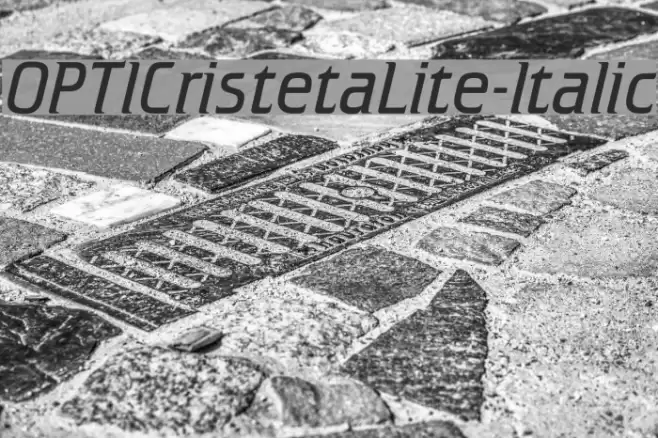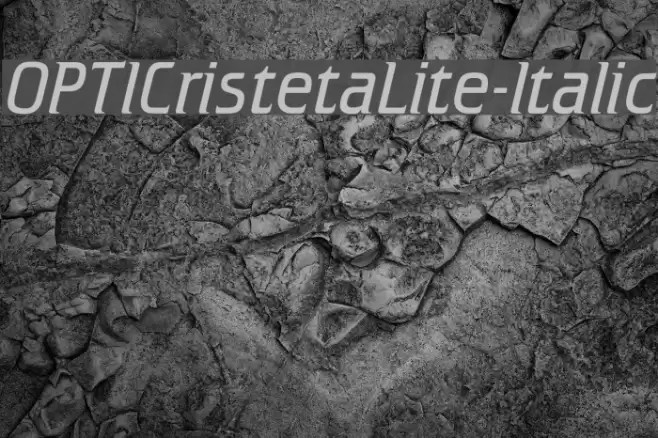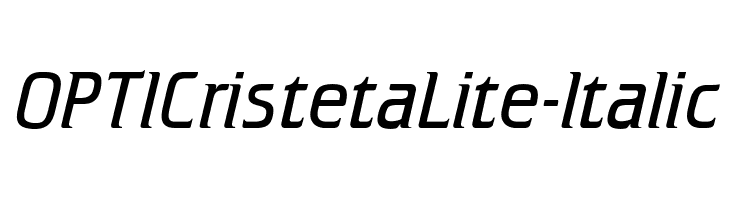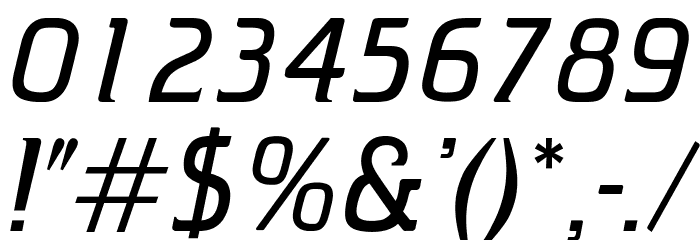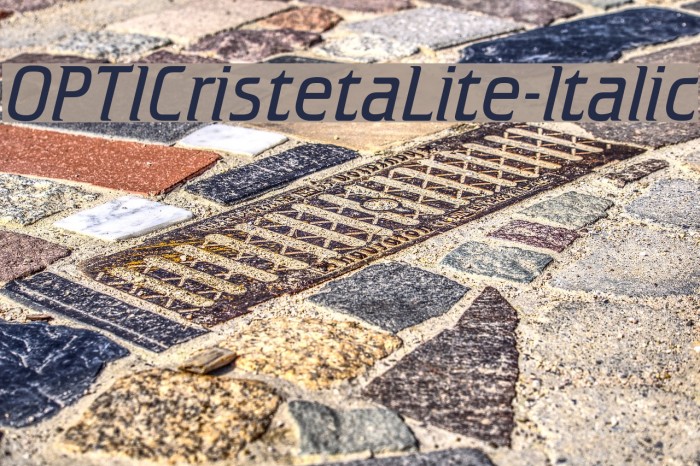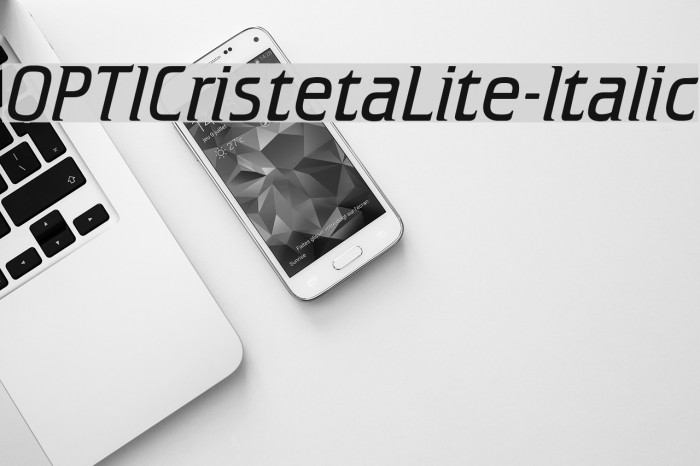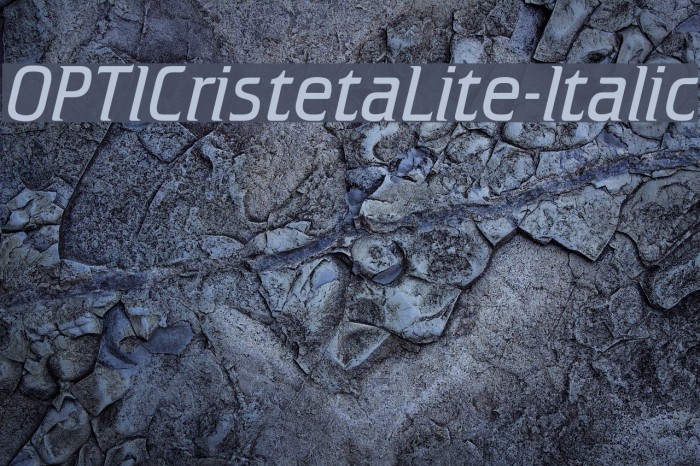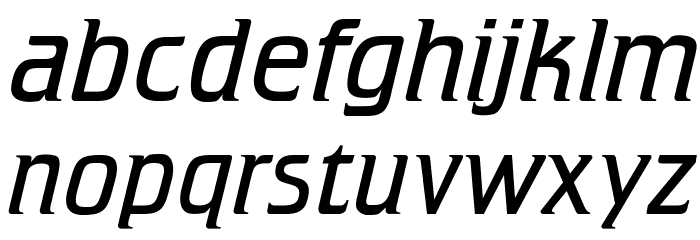
OPTICristetaLite-Italic Font
OPTICristetaLite-Italic Description
This font features a sleek and modern design with a slight italic slant, giving it a dynamic and forward-moving appearance. The characters are well-proportioned with a consistent stroke width, contributing to a clean and professional look. The uppercase letters maintain a strong presence, while the lowercase letters offer a smooth and flowing style. The numerals are clear and distinct, ensuring readability. Special characters are designed to complement the overall aesthetic, making this font versatile for various applications.
A modern, italic font with clean lines and a dynamic style from Uncategorized fonts.
- Proposed Projects: Ideal for branding, advertising, and editorial design projects where a modern and professional look is desired.